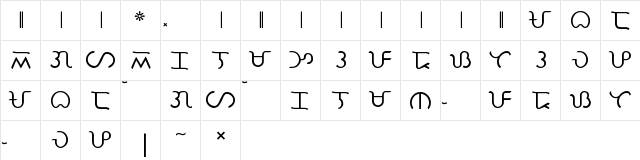
Baybayin Paga Regular
| Designer | rapcom |
Design Context for Baybayin Paga Typeface
Baybayin Paga offers clean, dependable letterforms without strong stylistic allegiance, making it a practical choice for designers who need flexibility.
Pro Tip: Use Baybayin Paga in both headline and body roles to test its range before committing to a single application.